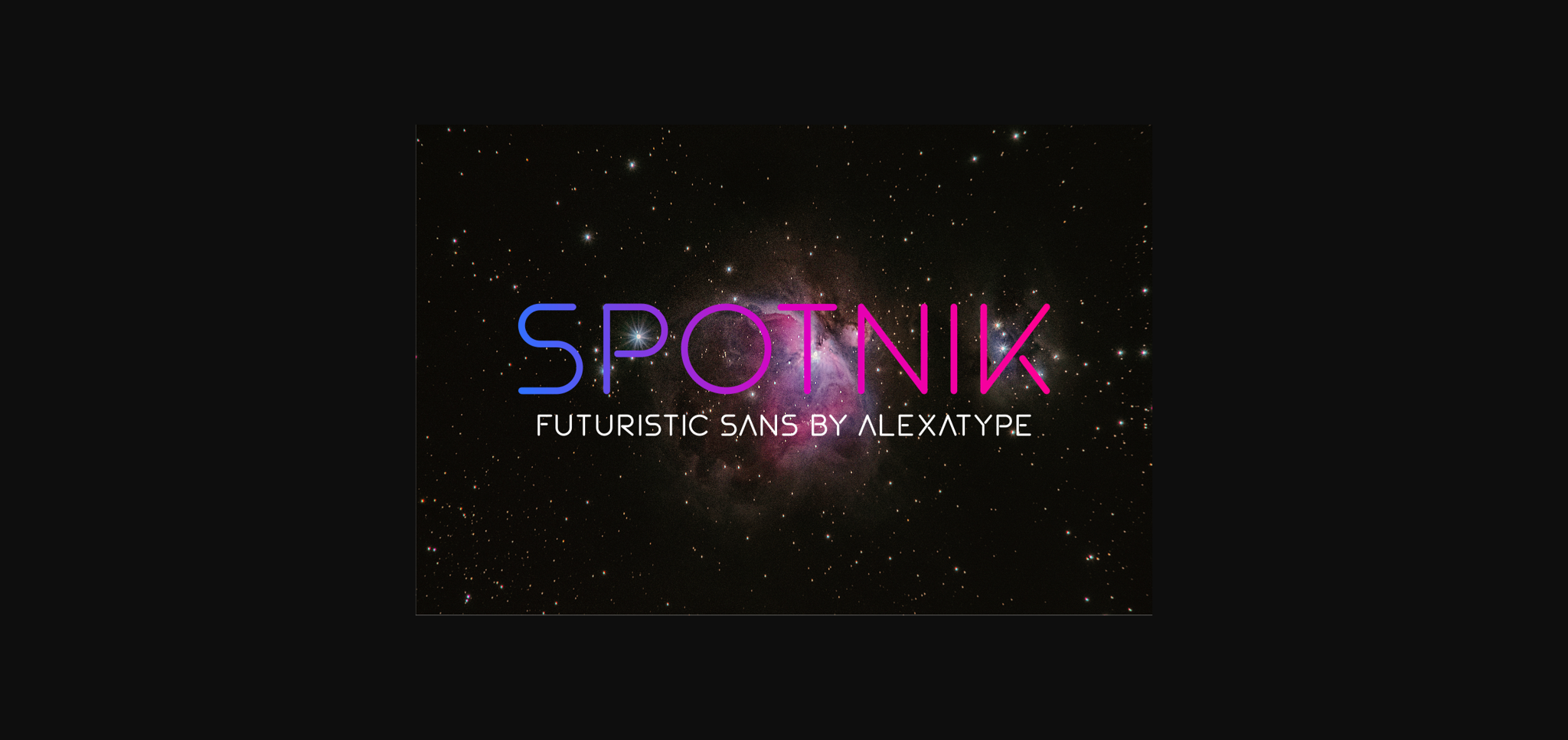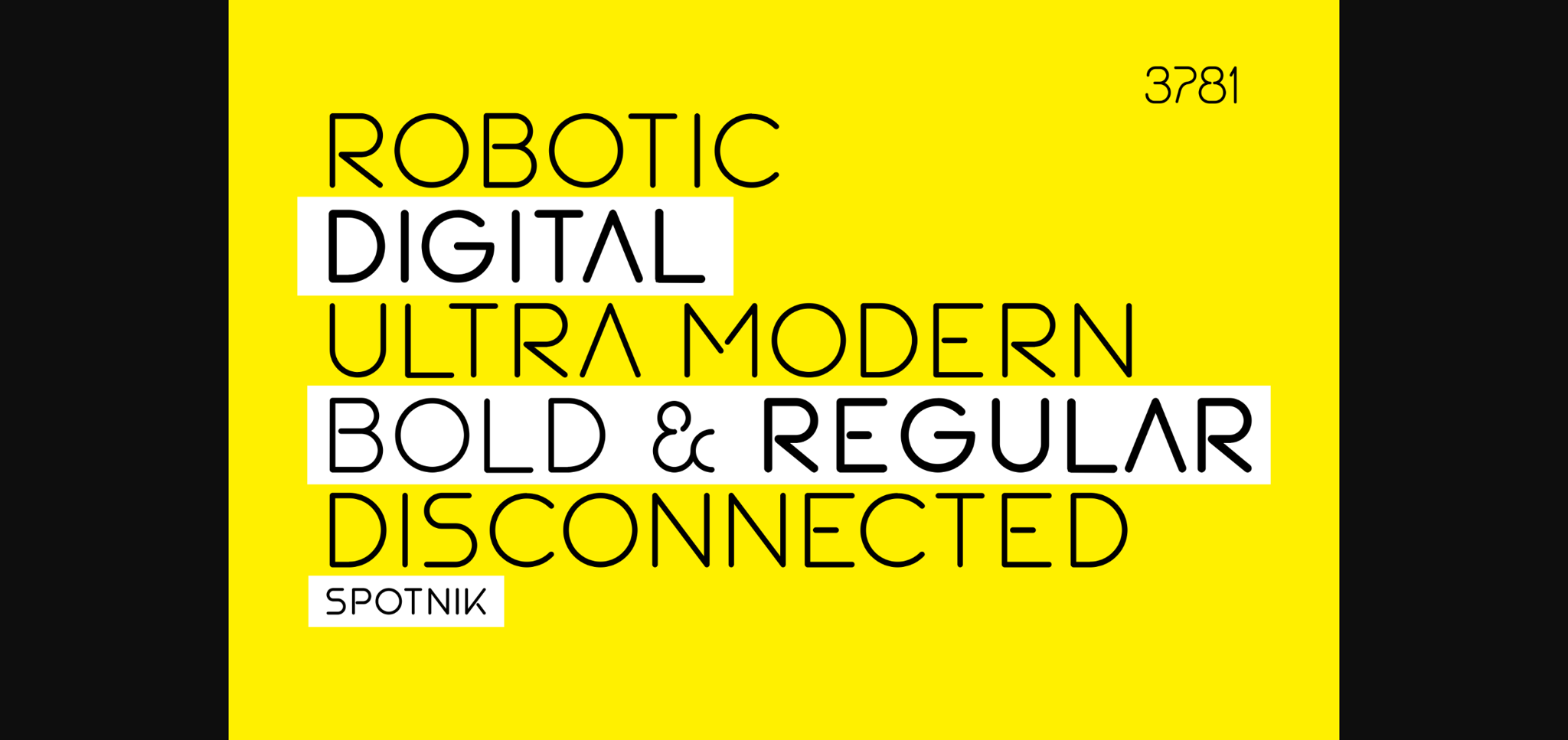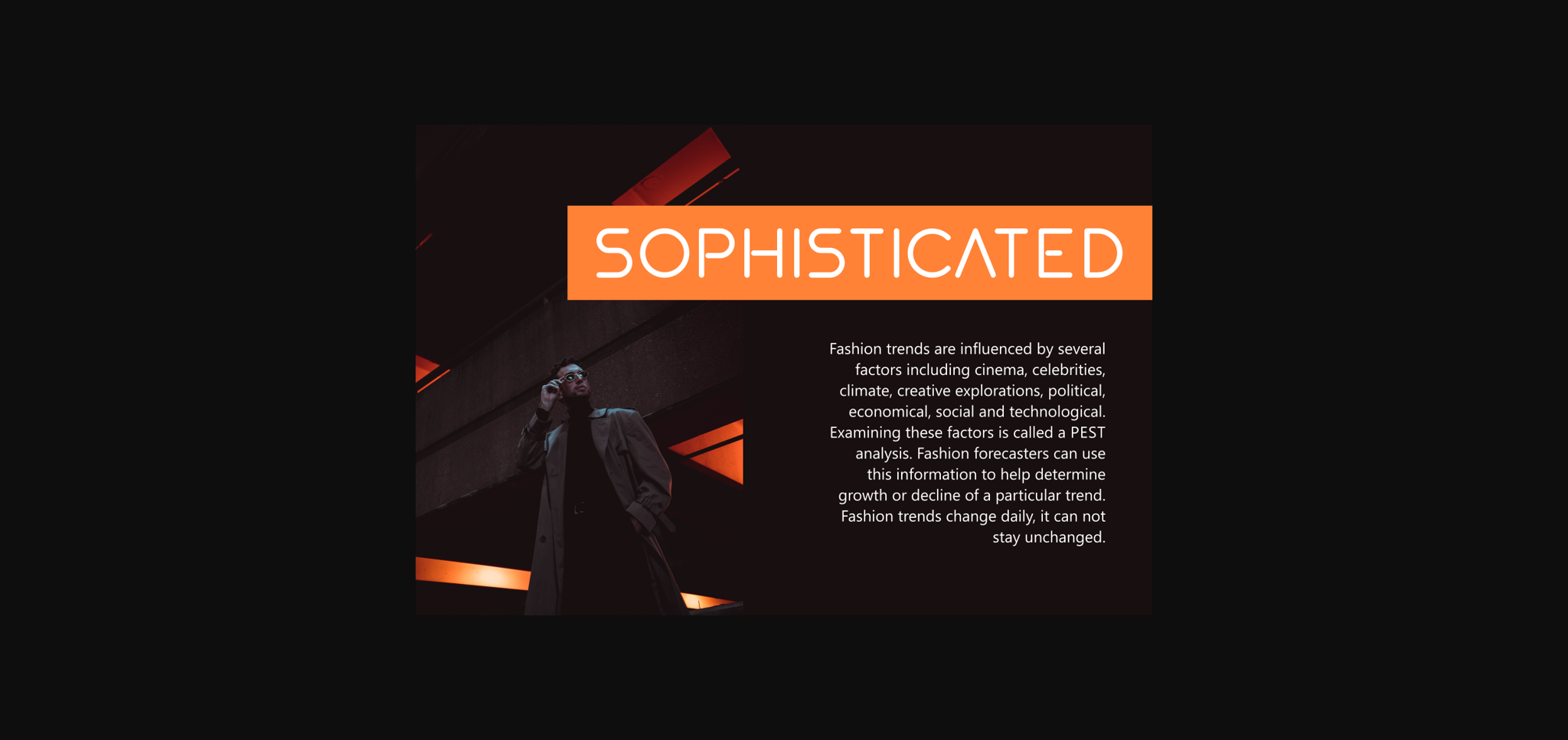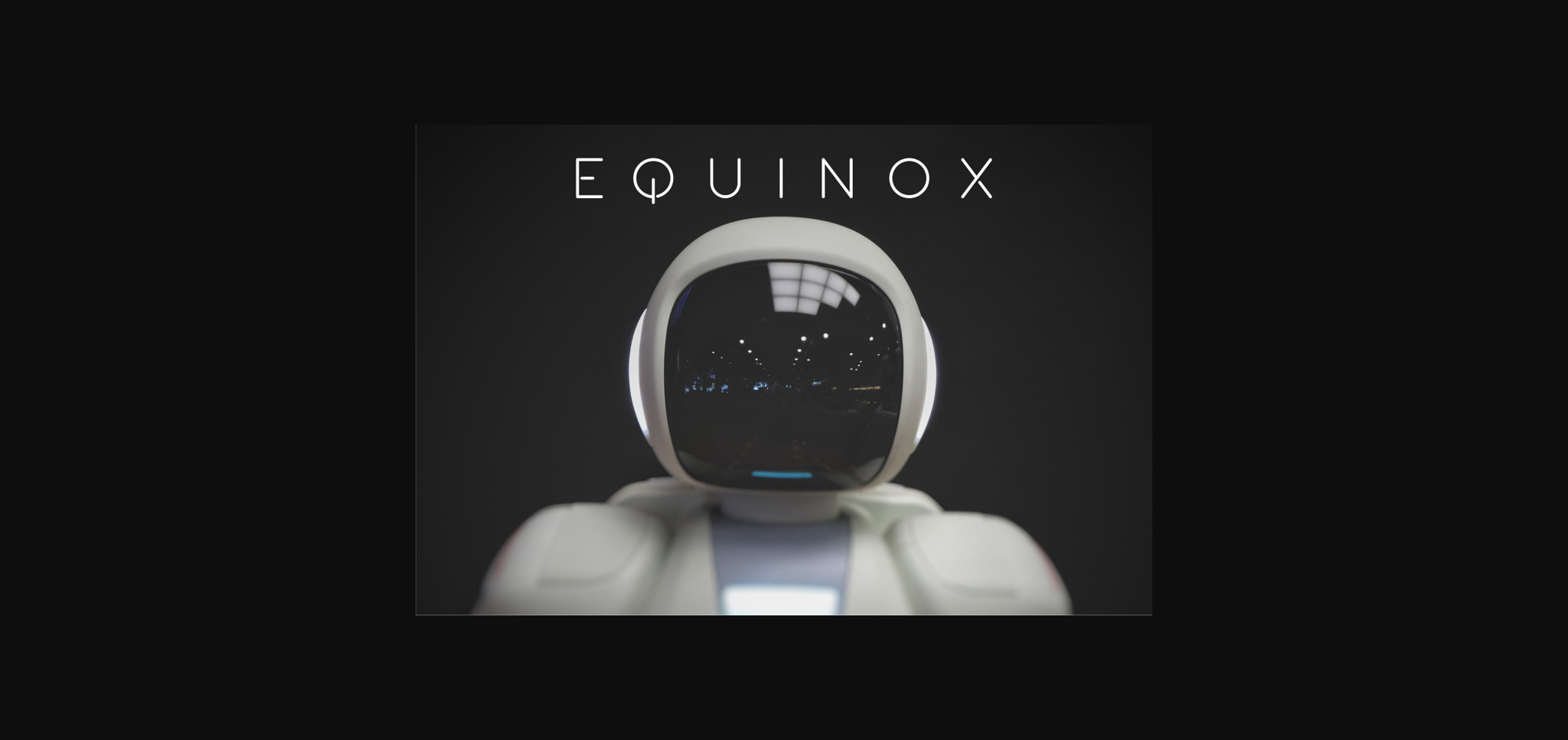
About Spotnik Font
Spotnik is a unique and futuristic sans serif font. It celebrates abstract shapes in all their eclectic beauty. Add this font to your creative ideas and notice how it will make them stand out!